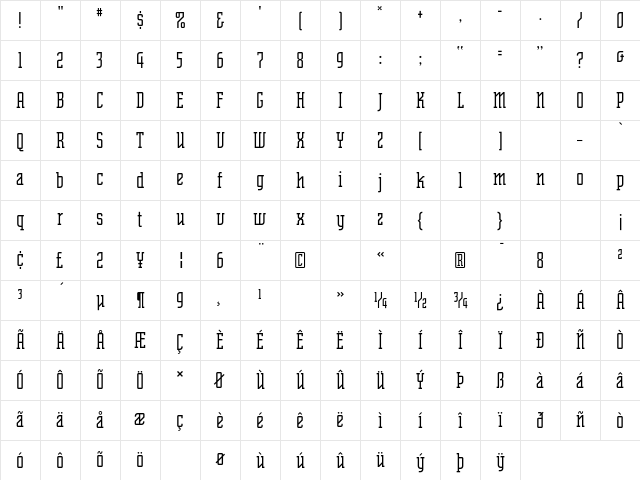
SenatorThin Regular
Design Context for SenatorThin
SenatorThin is a composed and adaptable typeface that performs quietly and consistently across a wide range of design contexts. Its slender proportions lend an understated elegance to any composition.